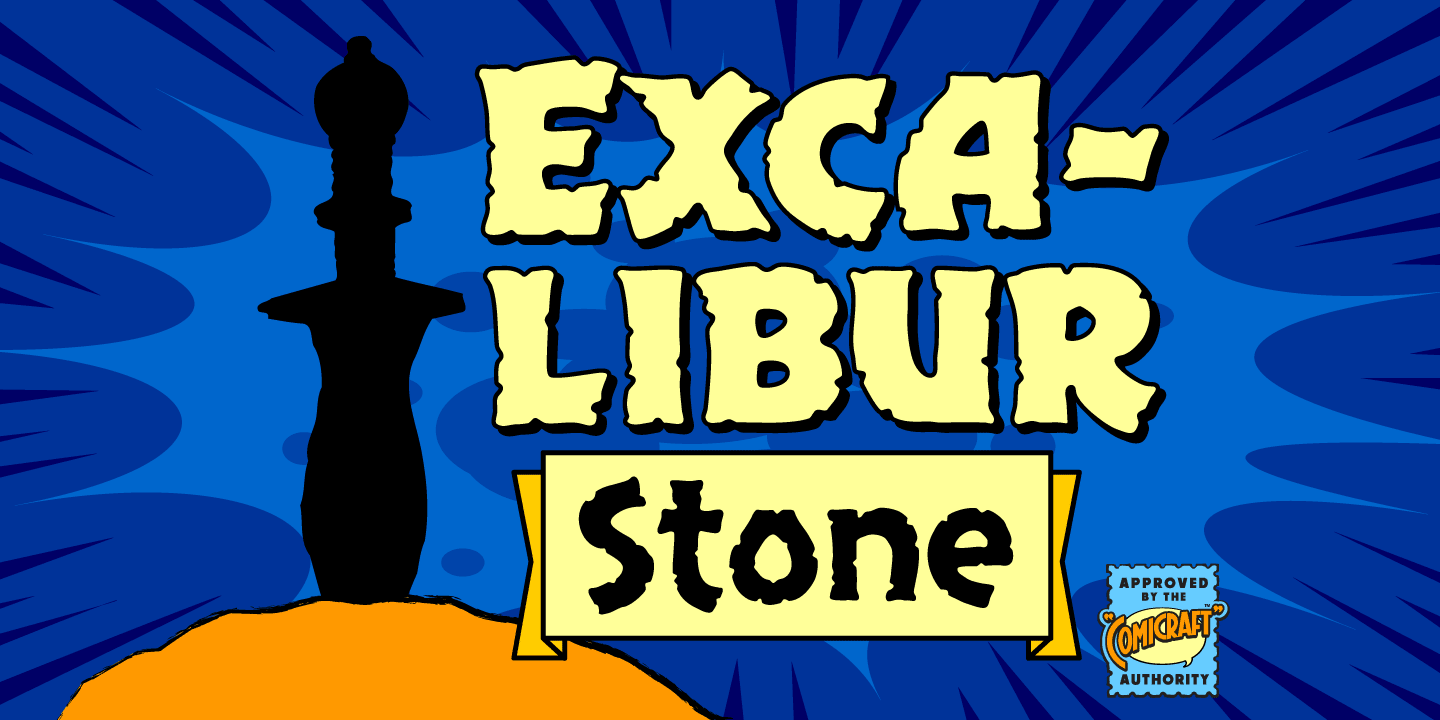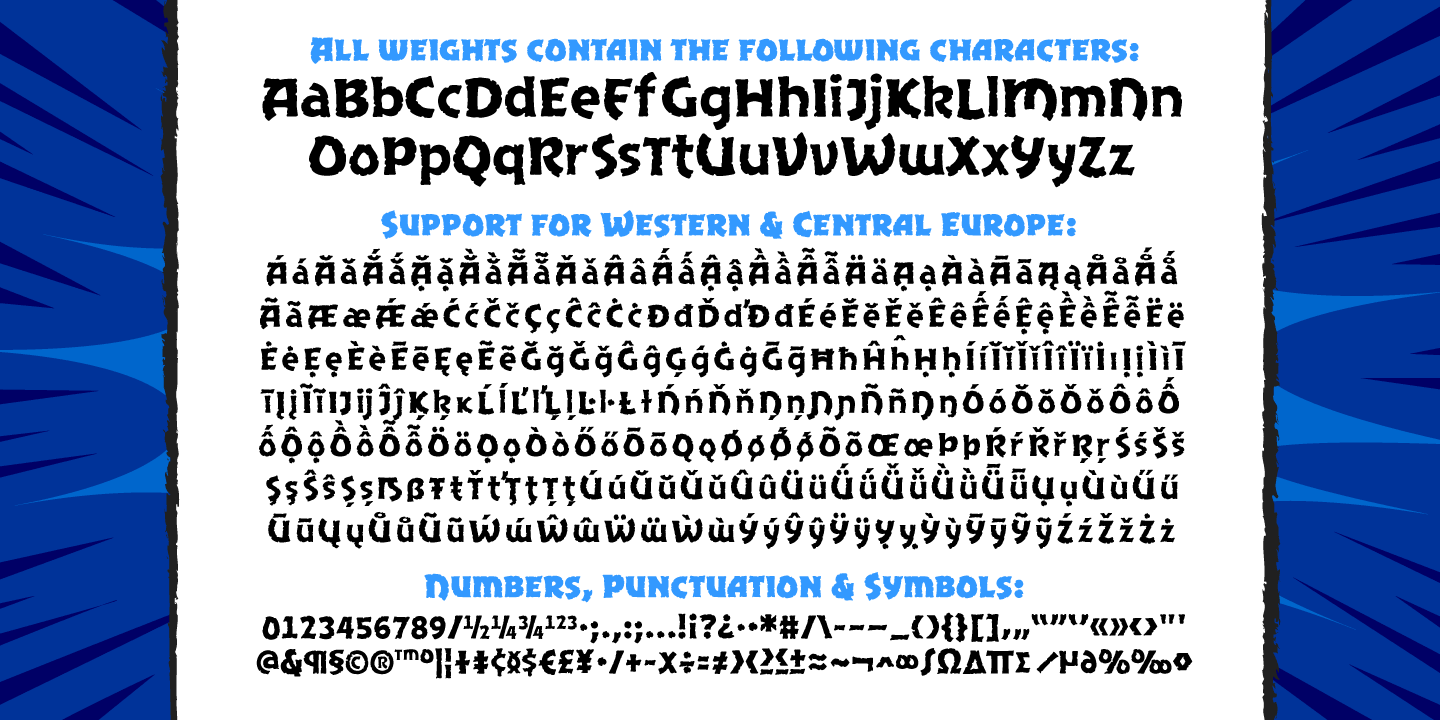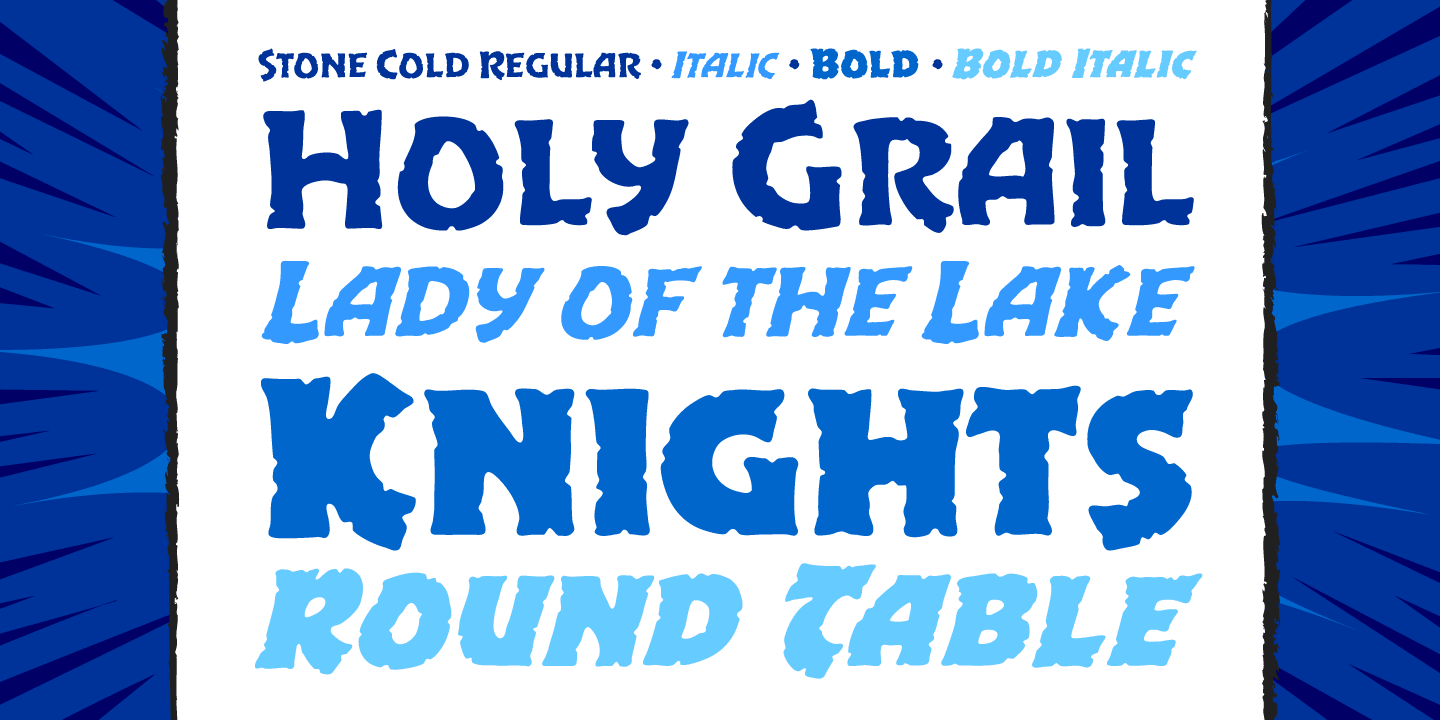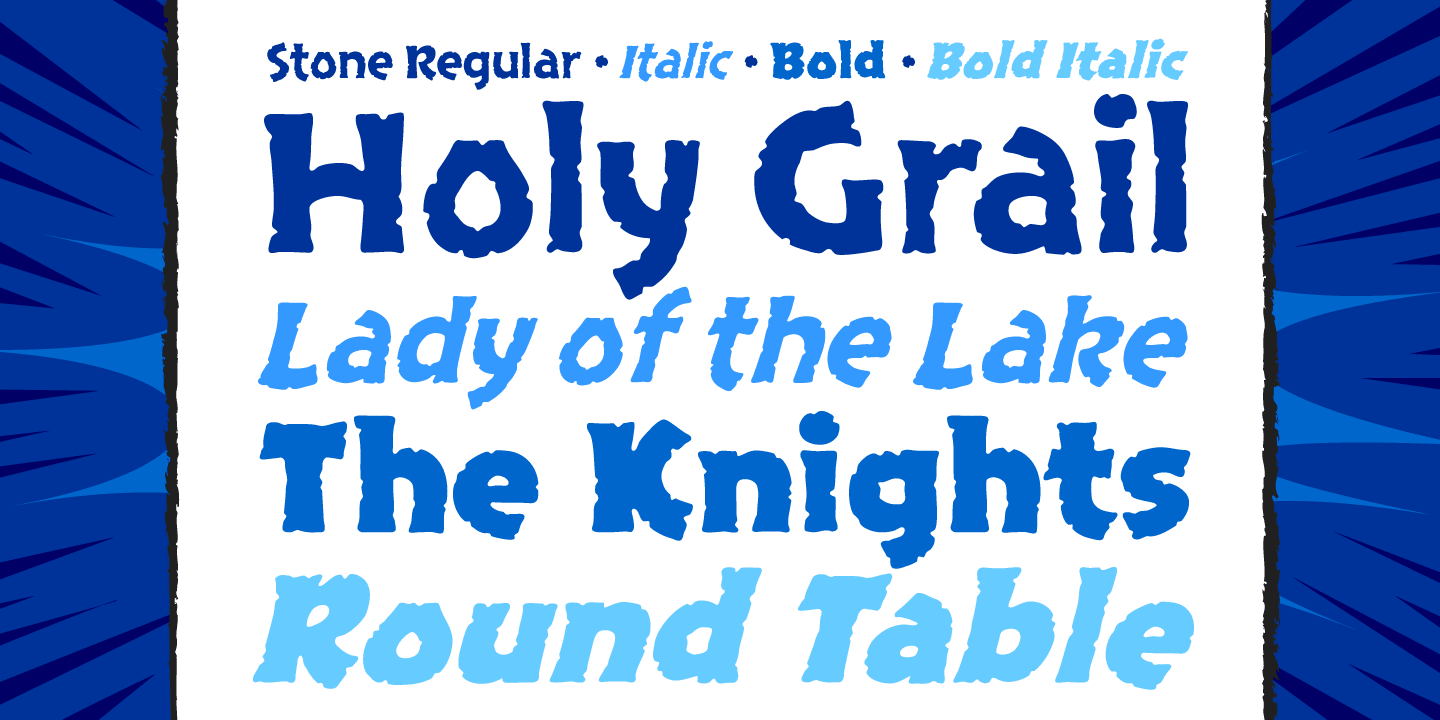
Excalibur Stone
Buy NowAfter the death of Uther Pendragon, long before Arthur was King of the Britons and before Galahad was destined to find the Holy Grail, the mighty sword Excalibur appeared, thrust into a Stone bearing the inscription; "Whosoever Pulleth Out This Sword of this Stone and Anvil, is Rightwise King Born of England!"
While no champion worthy of becoming king was able to pull the sword, England was plunged into the Dark Ages... the legend on the stone aged, and became cracked and weathered... much as one might find on your stone tablet, ipad or mobile device.